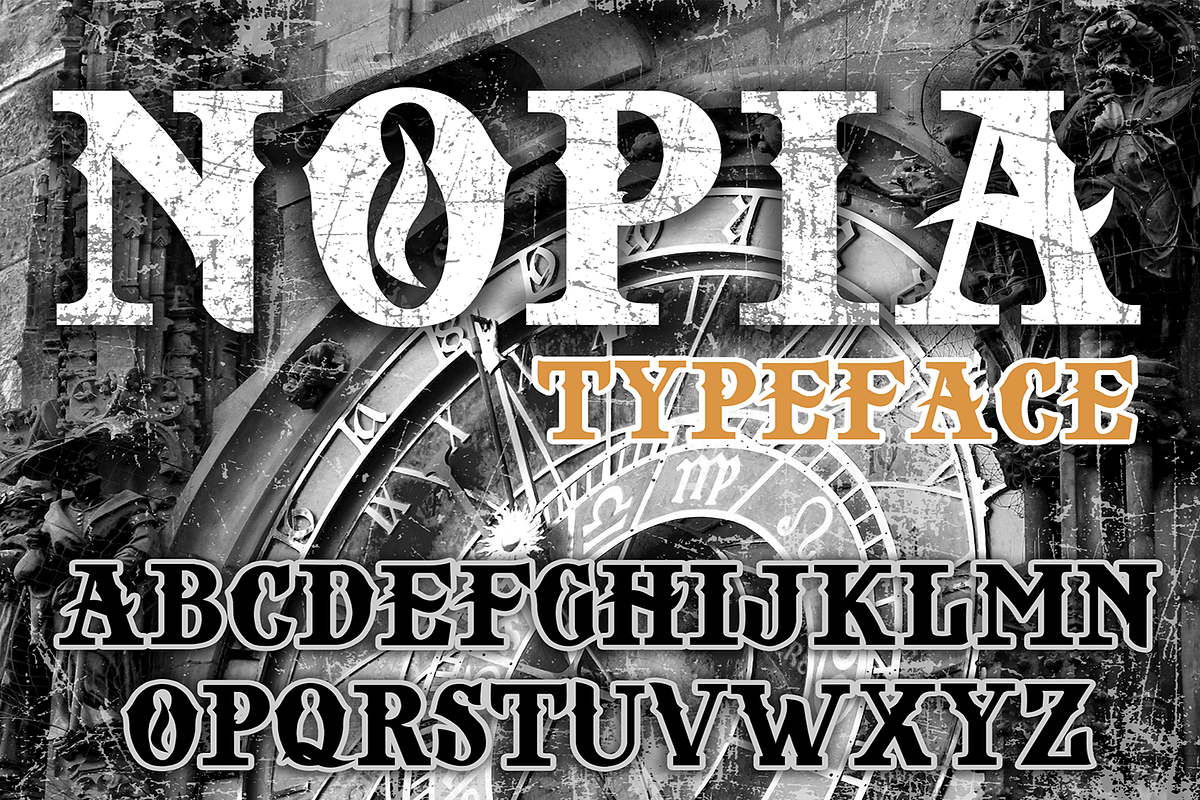
NOPIA
Introducing
NOPIA
- Bold ancient inspired font perfect on your school projects, book covers, etc.
- Vintage clean theme font for sports, university events and varsity use.